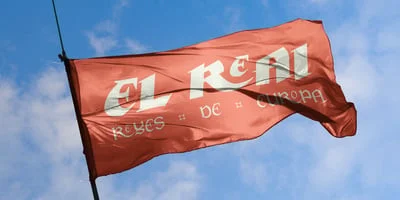
Vinicius Font
Vinicius Font is perfect for elegant design applications including luxury branding, premium packaging, sophisticated marketing materials, upscale restaurant menus, high-end fashion labels, exclusive event invitations, boutique hotel signage, and refined corporate communications. This distinguished typeface brings timeless sophistication and continental elegance to projects that demand exceptional refinement and cultural sophistication.
What makes Vinicius Font exciting is its masterful combination of classical European typography traditions with contemporary refinement that creates an unmistakably sophisticated character. The font features graceful letterforms with elegant proportions and refined details that convey luxury and exclusivity. Its cultured aesthetic speaks to discerning audiences who appreciate typographic excellence, cultural heritage, and sophisticated design sensibilities.
The Vinicius Font family includes comprehensive elegant variations such as Light, Regular, Medium, Bold, and accompanying italic styles that maintain the font's characteristic sophistication throughout different applications. These refined options provide complete typographic coverage for luxury brand systems while preserving the distinctive elegance that defines premium design applications.
This distinguished typeface represents the pinnacle of contemporary luxury typography and sophisticated brand communication. Premium brands and luxury service providers choose Vinicius Font for its exceptional ability to communicate exclusivity and refined elegance. The font's sophisticated character makes it ideal for luxury retail, high-end hospitality, and premium services that target affluent consumers seeking contemporary sophistication. Its elegant presence ensures memorable brand recognition while maintaining the prestigious aesthetic that distinguishes exceptional luxury design work.